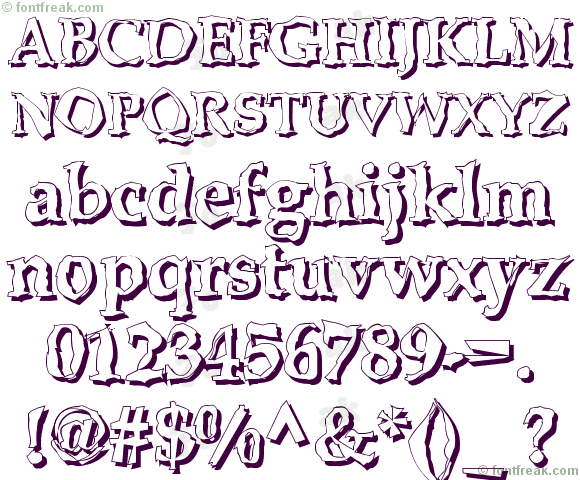
BONKERS - shadow
About Bonkers Shadow
Introducing the Bonkers Shadow font, a unique display typeface crafted by The Font Farm. This decorative font, characterized by its playful and whimsical style, features bold, rounded letters with a striking shadow effect that adds depth and dimension to any design. The Bonkers Shadow font showcases a medium stroke weight, creating a balanced contrast between the letters and their shadows. The spacing is generous, allowing for easy readability while maintaining a fun, lighthearted aesthetic. With its distinctive design elements, this font captures attention and invokes a sense of joy.
The Bonkers Shadow font is incredibly versatile, making it perfect for a variety of creative applications. It shines in contexts like children's book covers, where its playful nature can engage young readers. Additionally, it works exceptionally well for party invitations, adding a festive flair that sets the tone for celebrations. Restaurant menus can also benefit from this font, as it infuses a lively spirit that entices diners. Furthermore, the Bonkers Shadow font is an excellent choice for social media graphics, allowing content creators to stand out in crowded feeds with its unique charm.
What truly sets the Bonkers Shadow font apart is its ability to convey fun and energy while remaining highly legible. This makes it an ideal choice for projects aimed at a youthful audience or those seeking to evoke a sense of playfulness. With its eye-catching design and versatile applications, Bonkers Shadow is a standout option in any font collection.